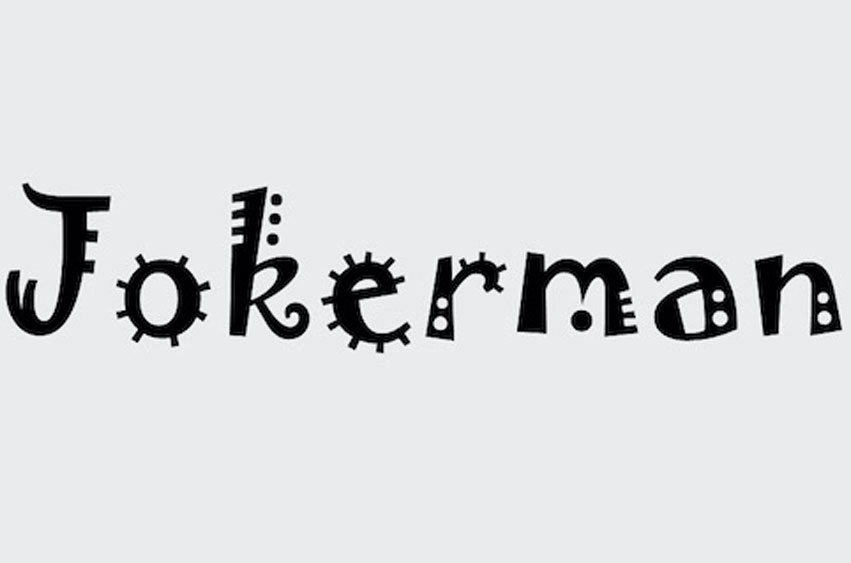
Jokerman Font is a fancy decorative font with an attractive display and cool appearance.
This font gets too much famously in no time due to its tremendous attractive glimpses and its use for the social network logo.